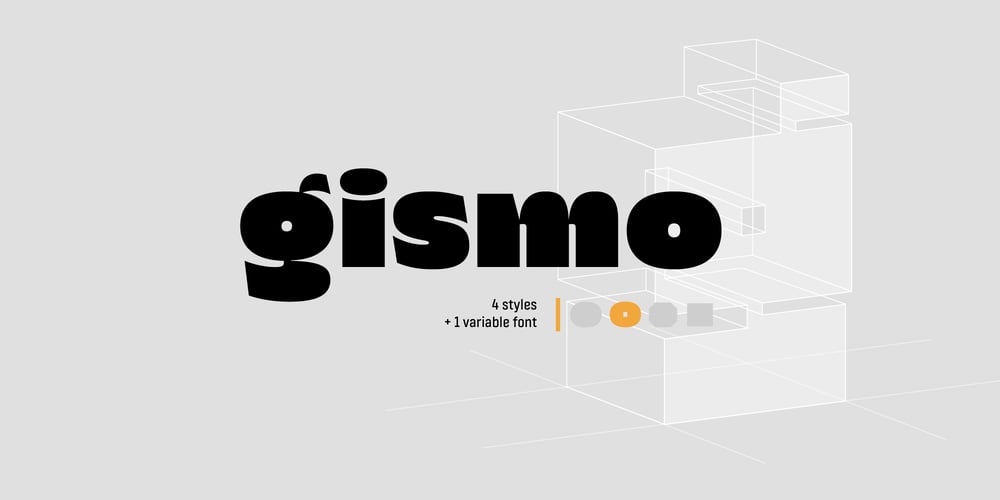
Gismo Font Family was designed by Ani Dimitrova and published by Fontfabric. Gismo contains 5 styles and family package options. Fontfabric introduces Gismo Font Family, a modern sans-serif font family that offers four unique styles: Round, Semi-rectangular, and Rectangular.Developed in collaboration with Ani Dimitrova, a former lead designer from the foundry which continues to publish fresh and high-quality typefaces. Gismo Font Family is a versatile typeface that can be used for various design projects. The Round style is bold and curvaceous, making it ideal for display purposes. With its circular, organic shapes, the Round style adds a touch of warmth and energy to any design project. It’s well-suited for corporate and business looks, exuding simplicity and elegance that will help your brand stand out.The Semi-round and Semi-rectangular styles blend the best of both worlds, offering a mix of curves and straight lines for a harmonious flow. The Semi-round style suits projects that require a touch of whimsy, while the Semi-rectangular style is great for designs that combine professionalism and personality.The Rectangular style, with its sharp lines and minimalist design, is perfect for conveying a sense of professionalism and sophistication. This option works well for logos, branding, and headlines, as it exudes a sleek and modern look. The Rectangular style leans towards engineering and industrial looks, making it a good pick for projects that require a more technical appearance.Overall, Gismo Font Family adds a touch of modernity and edge to any design project. It is suitable for a wide range of industries, including technology, fashion, and lifestyle. With its four unique styles, Gismo Font Family offers businesses the opportunity to choose the perfect typeface to represent their brand. So, if you want to make a lasting impression with your design, consider using Gismo Font Family.